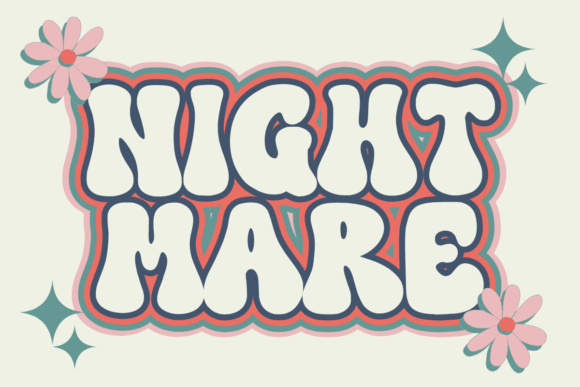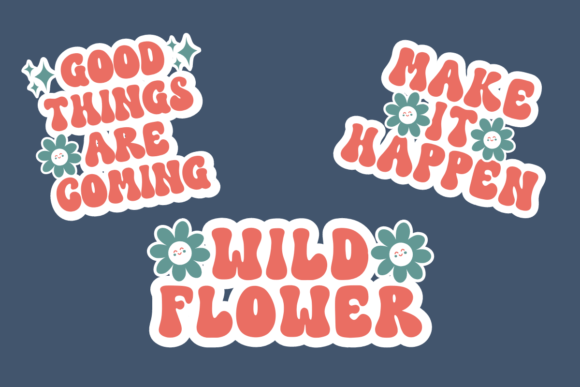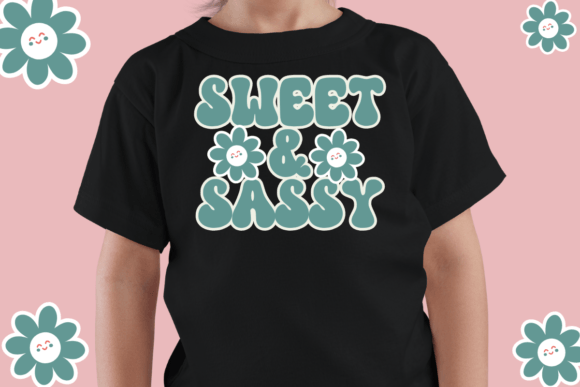
Introduction to Magic Night Font
As designers, we’ve all been there – staring at a blank canvas, struggling to find the perfect font to bring our creative vision to life. And then, like a spark of magic, it hits us – the perfect font that captures the essence of our project and elevates it to the next level. For many of us, that font is the Magic Night Font, a fun and retro design that adds a playful, cheery accent to any creative project.
Whether you’re working on a book cover, poster, or packaging design, the Magic Night Font is an invaluable resource that can take your work to new heights. With its high-quality design and transparent background, it’s perfect for free download and use in a variety of creative projects. As a valuable design resource, the Magic Night Font is a must-have for any designer looking to add a touch of whimsy and personality to their work.
Key Features of Magic Night Font
- Unique and Creative Design: Magic Night Font is designed to add a touch of magic to your creative projects, making it perfect for designers and artists.
- High-Quality Typography: With its high-quality design, Magic Night Font is ideal for use in a variety of creative projects, from print to digital media.
- Transparent Background: This font features a transparent background, allowing you to easily combine it with other design elements and create unique compositions.
- Perfect for Creative Projects: Magic Night Font is designed to be used in a variety of creative projects, from graphic design to digital art, making it an excellent addition to any designer’s toolkit.
Honest Review: Magic Night Font
As a designer, I’m always on the lookout for high-quality fonts to elevate my creative projects. Recently, I had the chance to review the Magic Night Font, and I’m excited to share my thoughts with you.
- ✨ The Magic Night Font has a unique, mystical vibe that’s perfect for fantasy or sci-fi projects.
- ✨ The transparent background makes it easy to use the font in a variety of design scenarios.
- ⚠️ The font is not as versatile as some other high-quality fonts on the market.
- ⚠️ Some users may find the font’s mystical vibe to be overused or cliché.
Overall, I’d give the Magic Night Font 4 out of 5 stars. While it’s not the most versatile font out there, it’s a great design resource for anyone working on a creative project that requires a touch of magic. With a little bit of creativity, this font can really shine.
To get the most out of the Magic Night Font, try using it in conjunction with a transparent background to create a sense of depth and dimension. You can also experiment with different font sizes and styles to add visual interest to your design.
The Magic Night Font is a versatile design resource that can be used in a variety of creative projects, including graphic design, digital art, and web design. It’s also a great resource for anyone looking for a free download of a high-quality font with a transparent background.